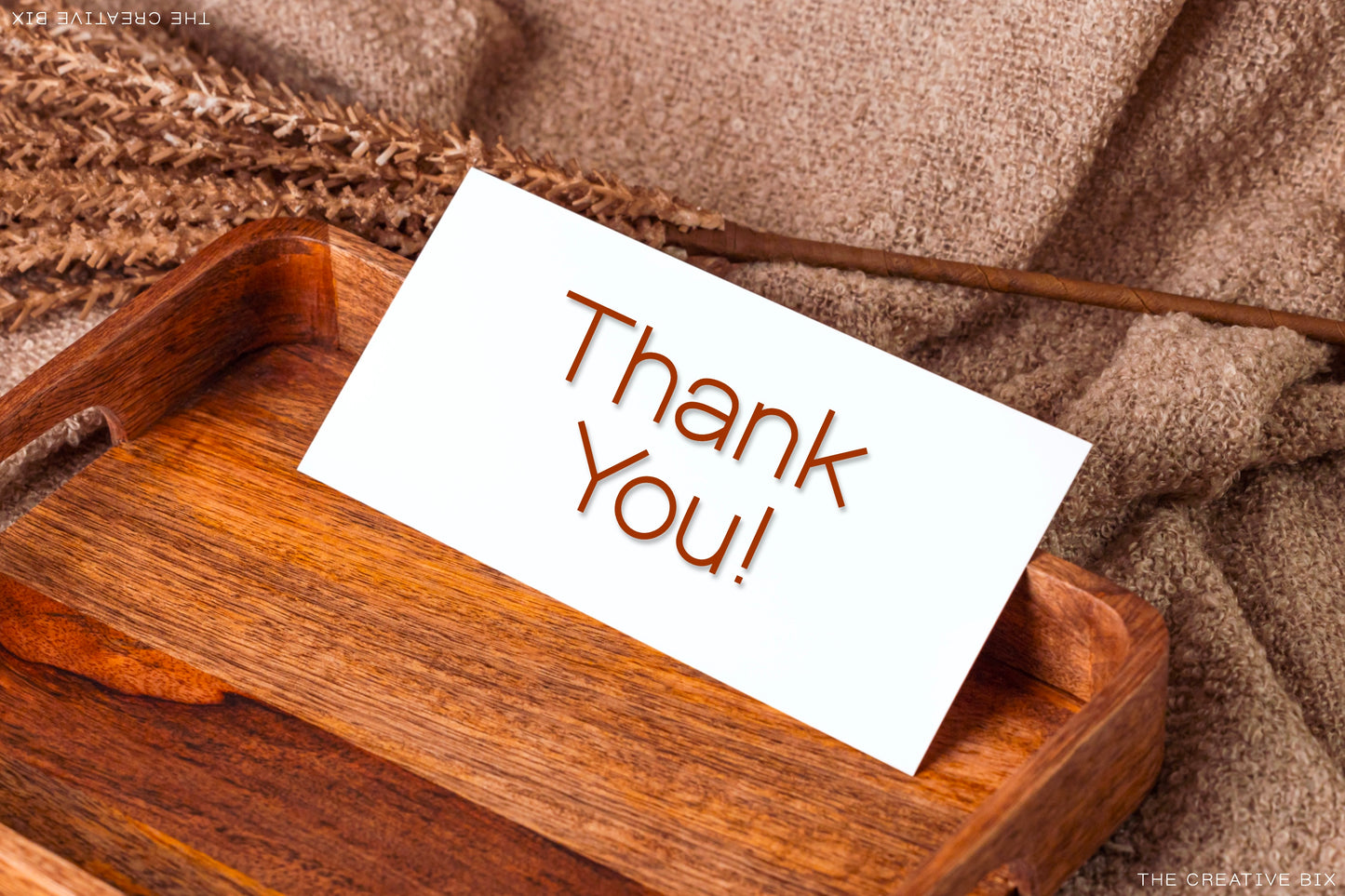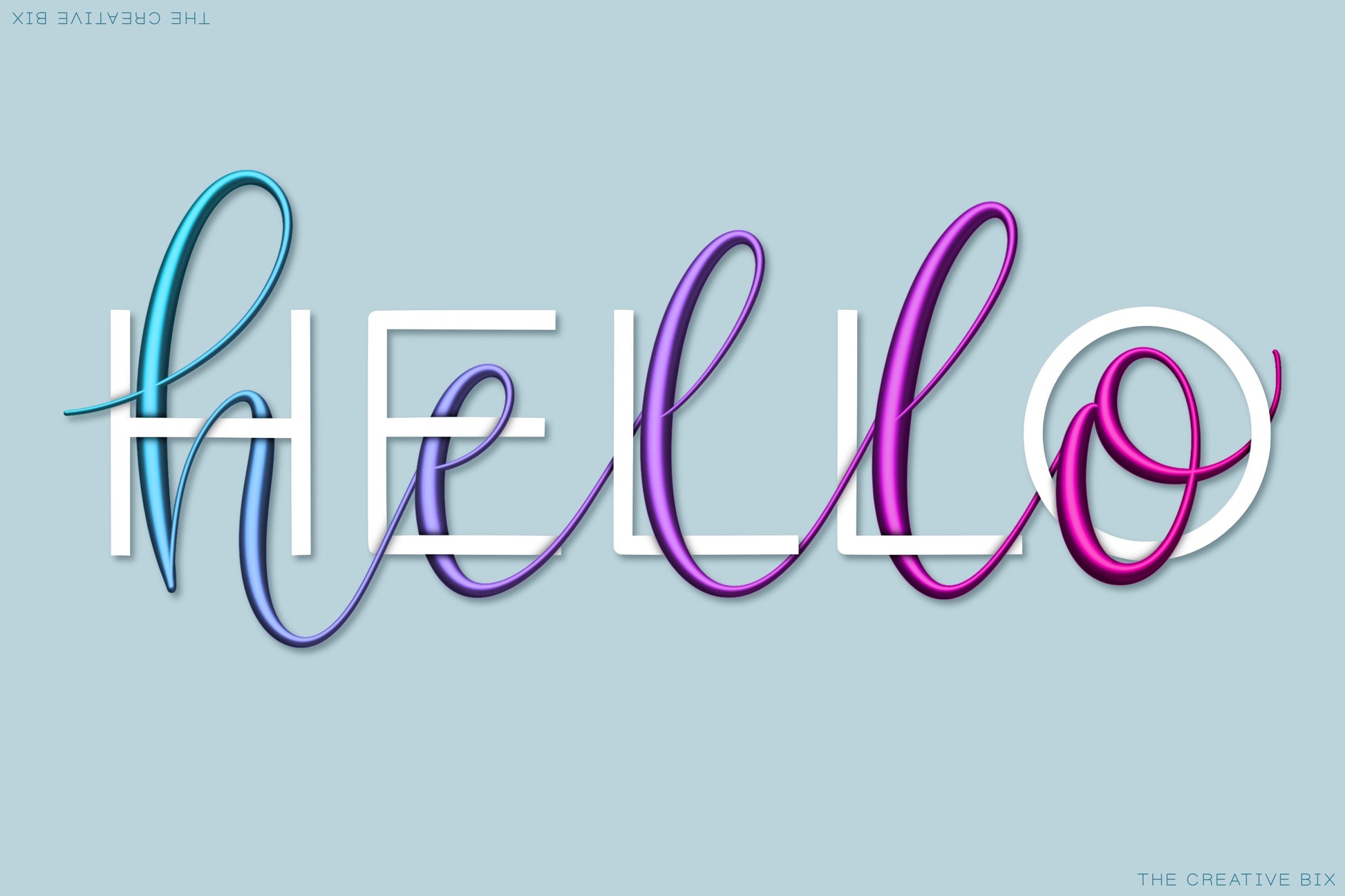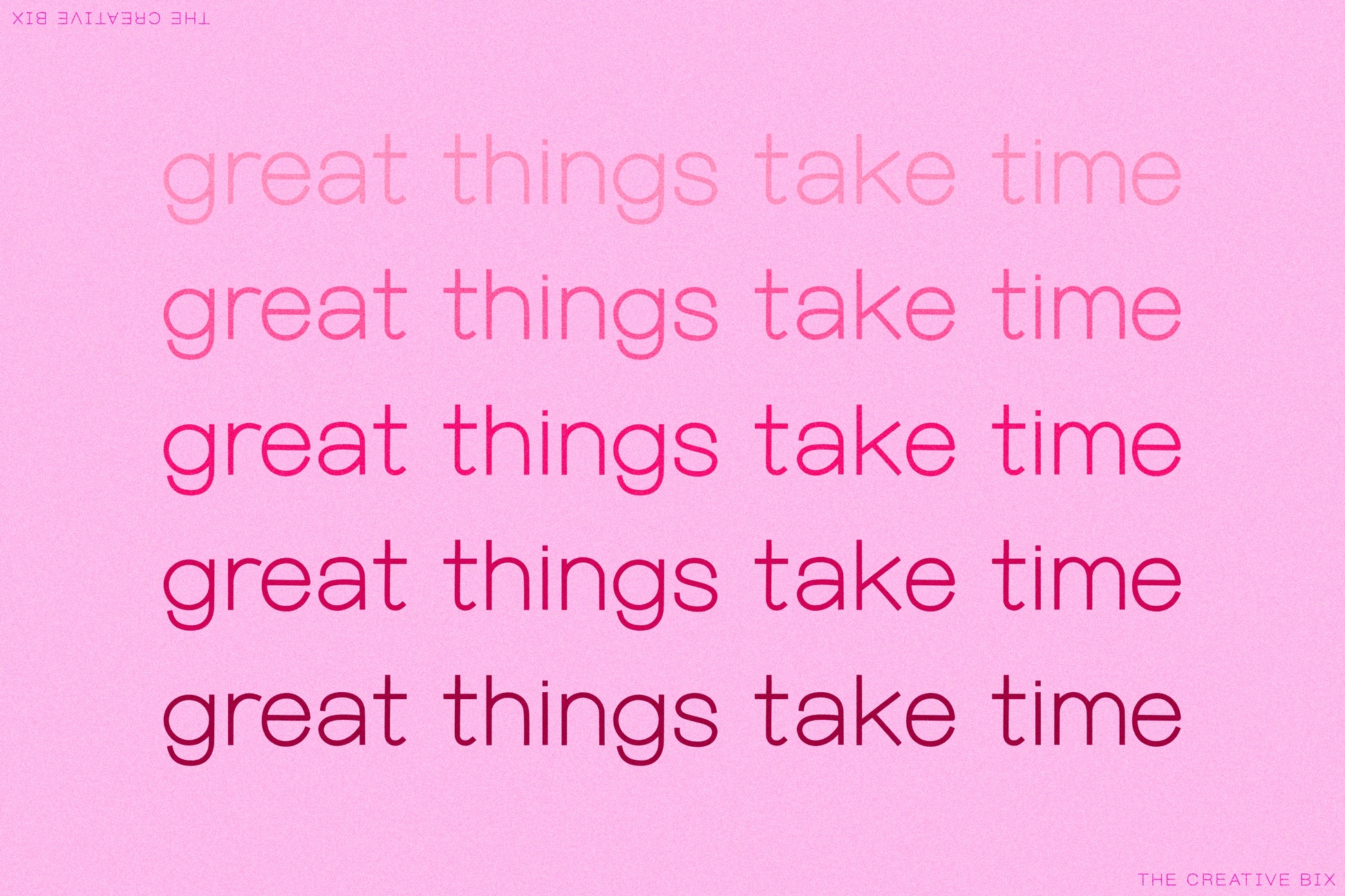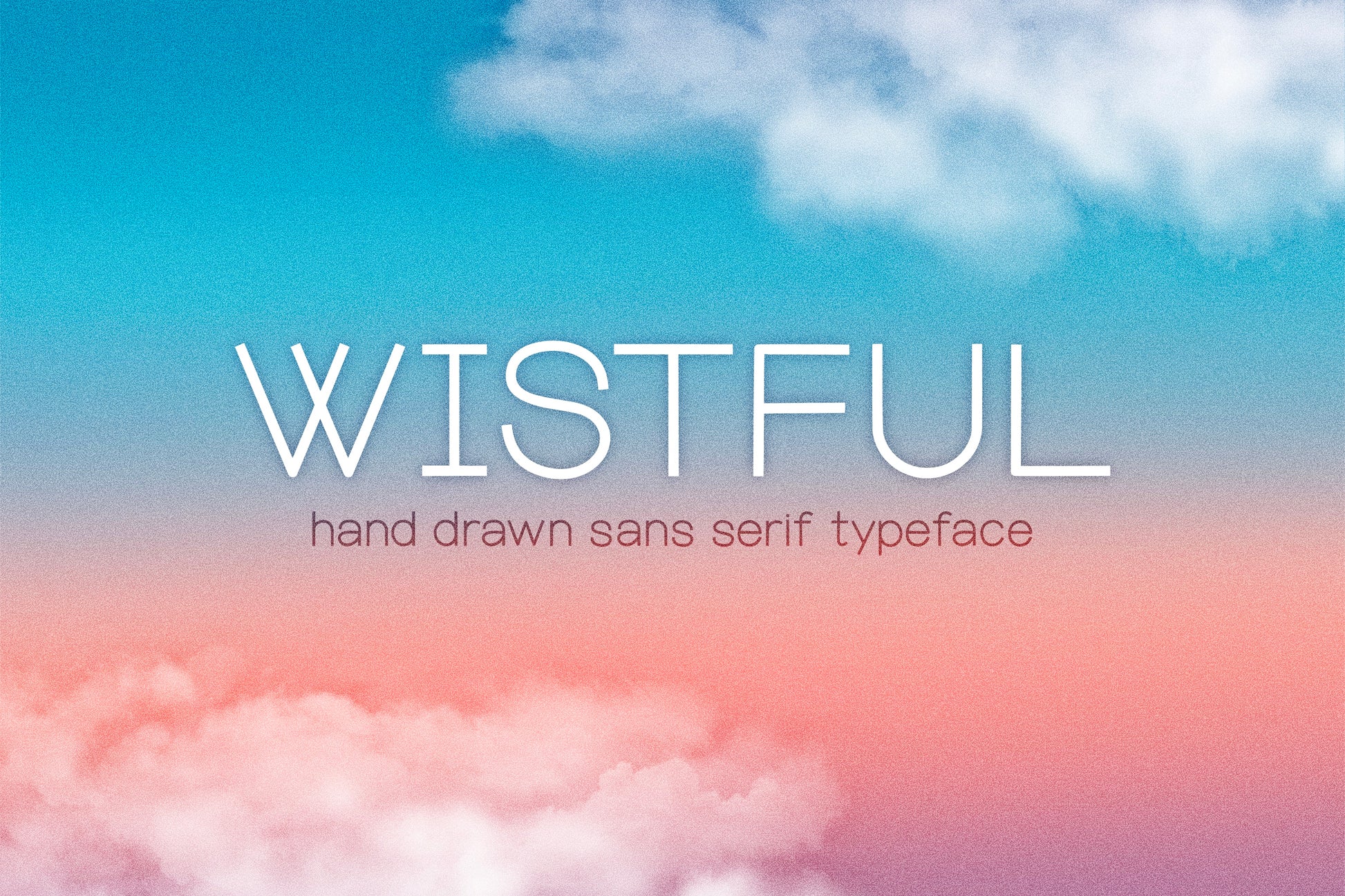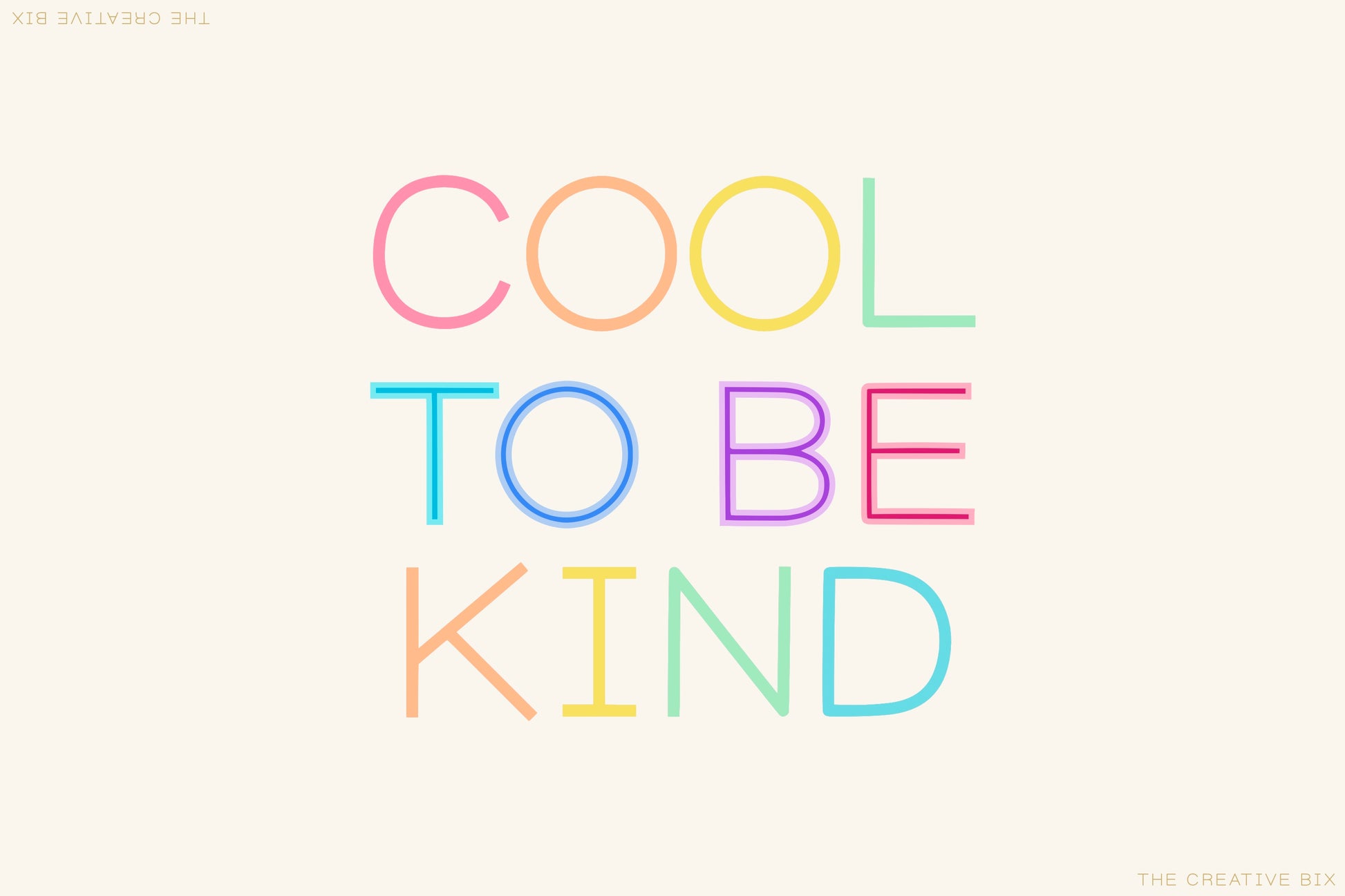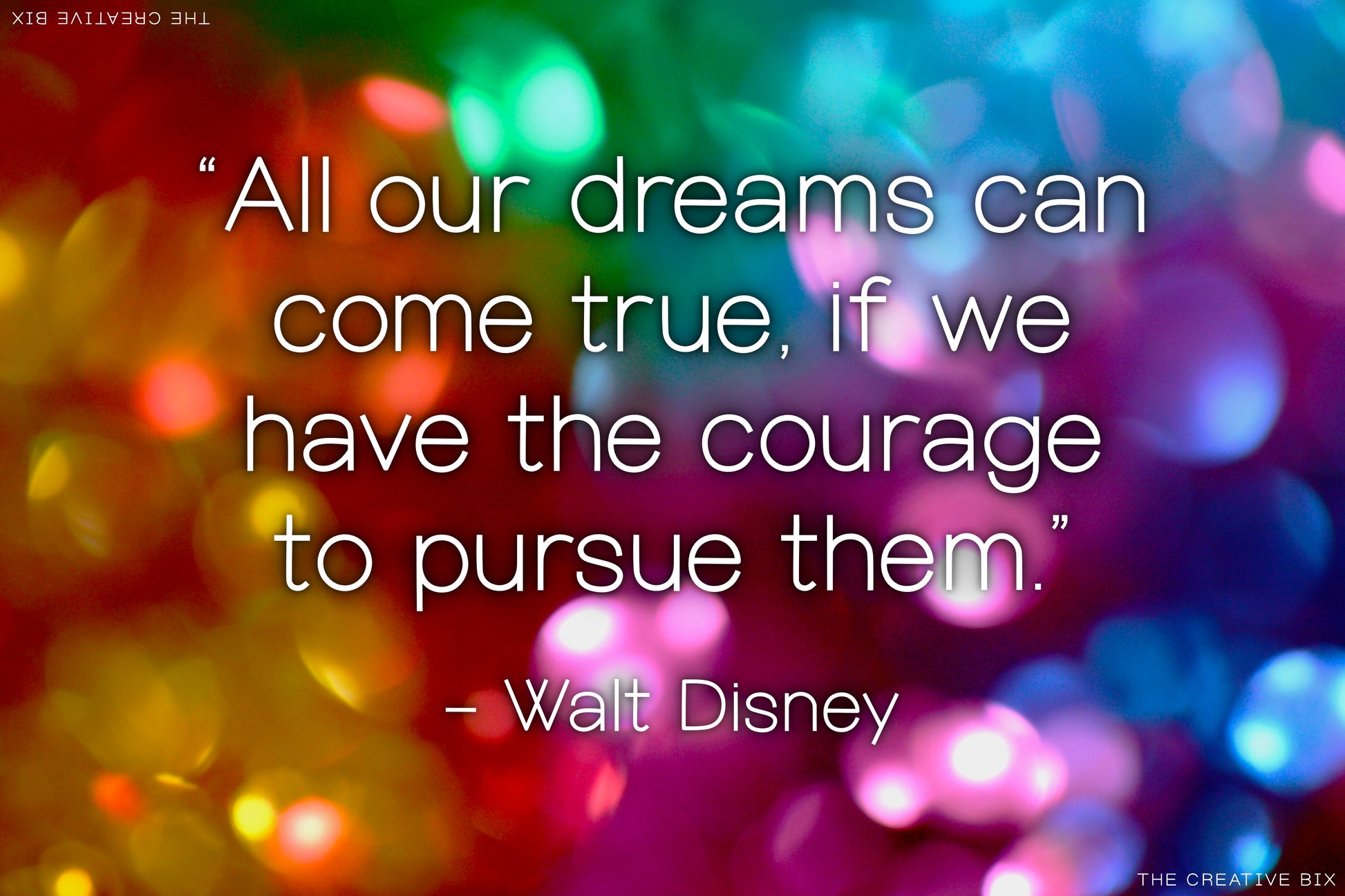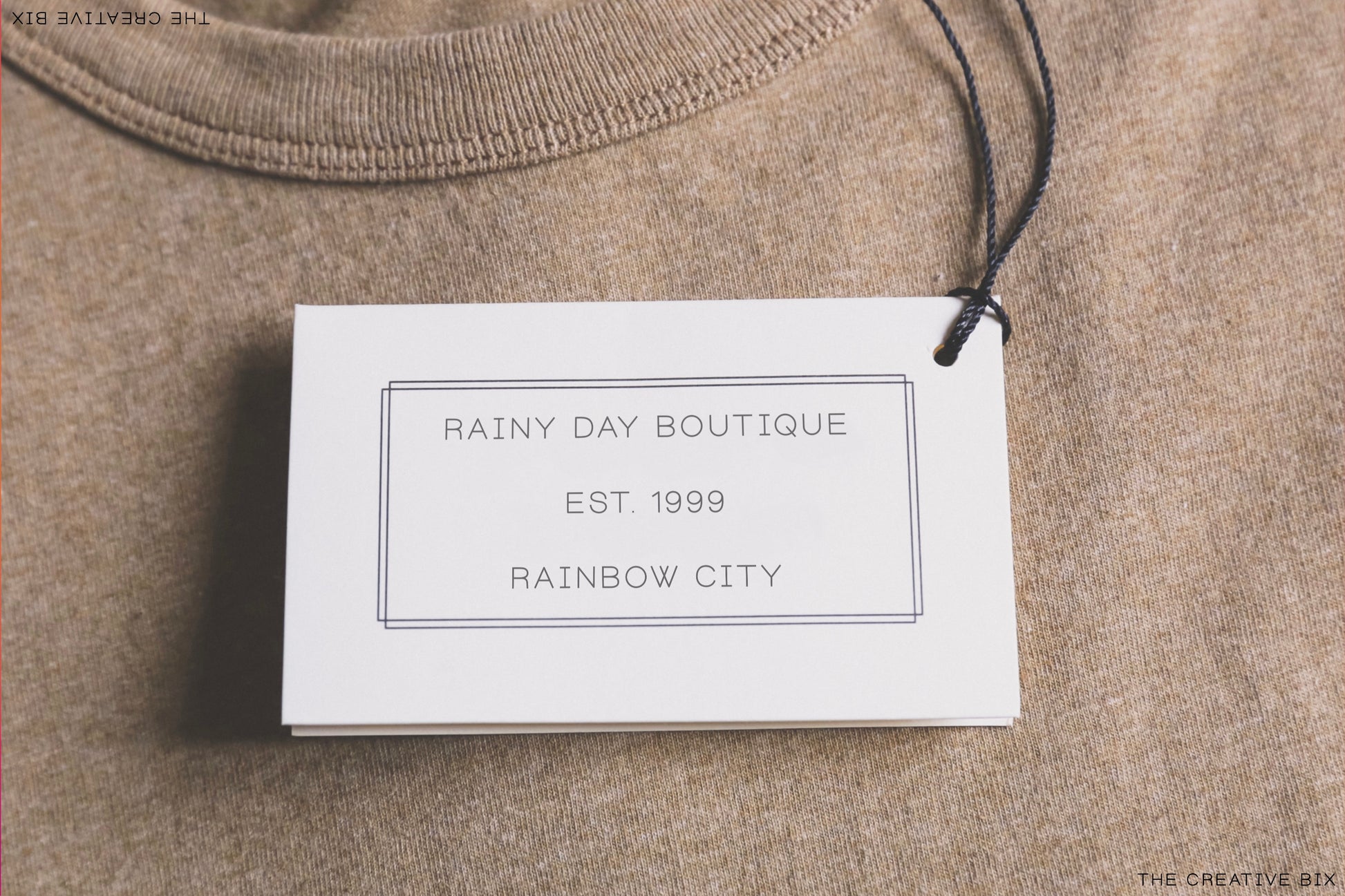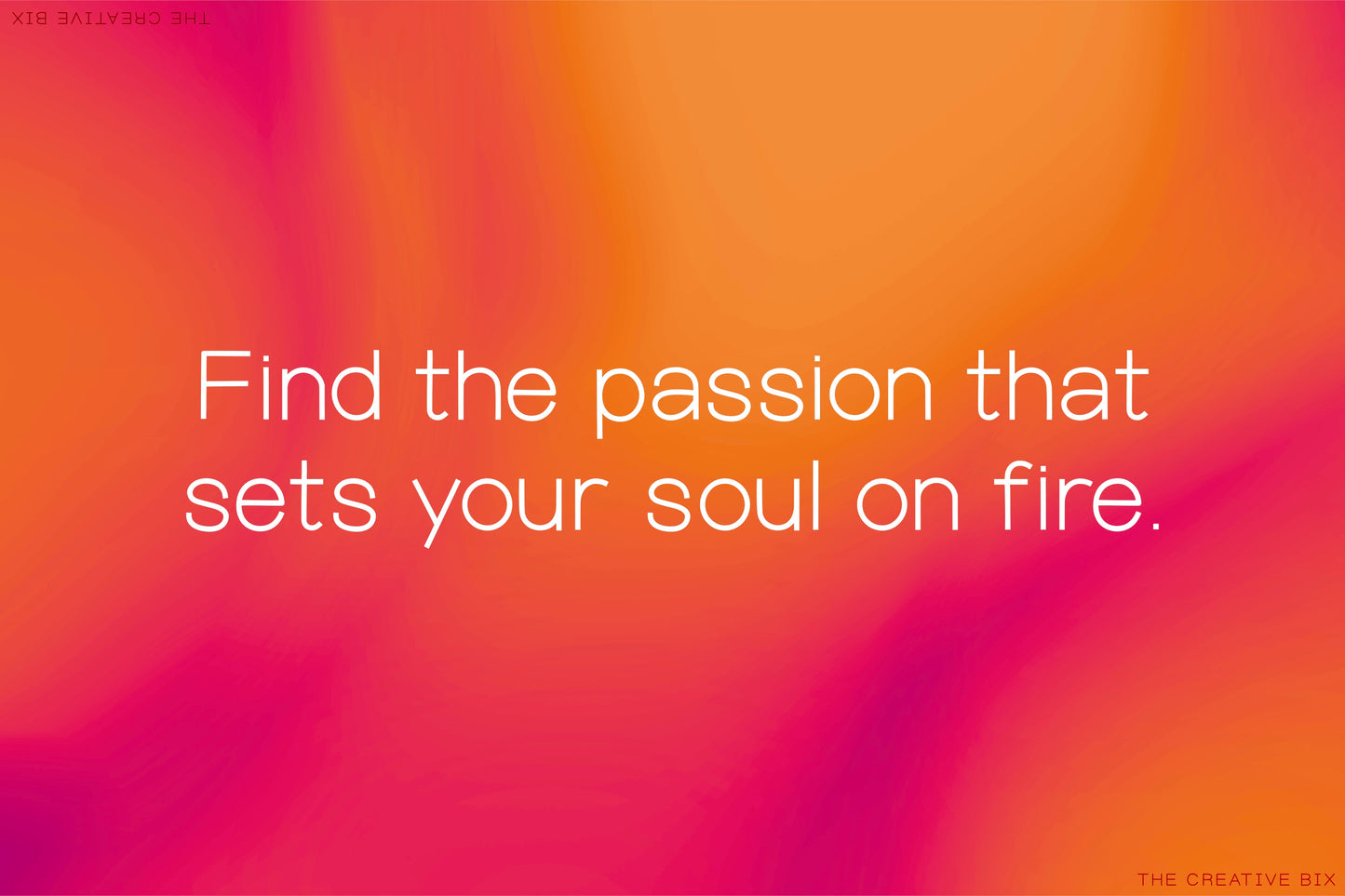
Wistful Handwritten Font
Introducing the Wistful handwritten/hand drawn font. This light, hand-drawn, geometric font will add a fun, cheerful, handmade flare to your design! Perfect for posters, Instagram quotes, stickers, 3D type designs, magazines, t-shirts, and much more! I especially love using this font for intertwining typography and lettering designs!